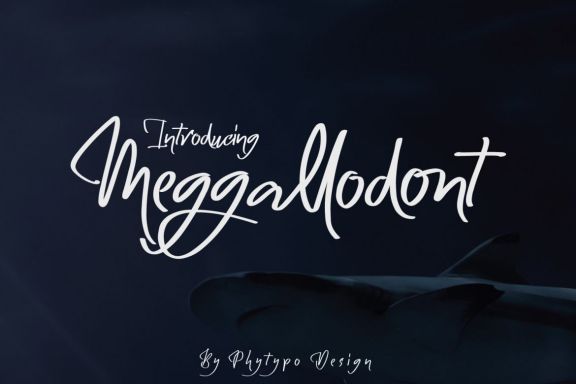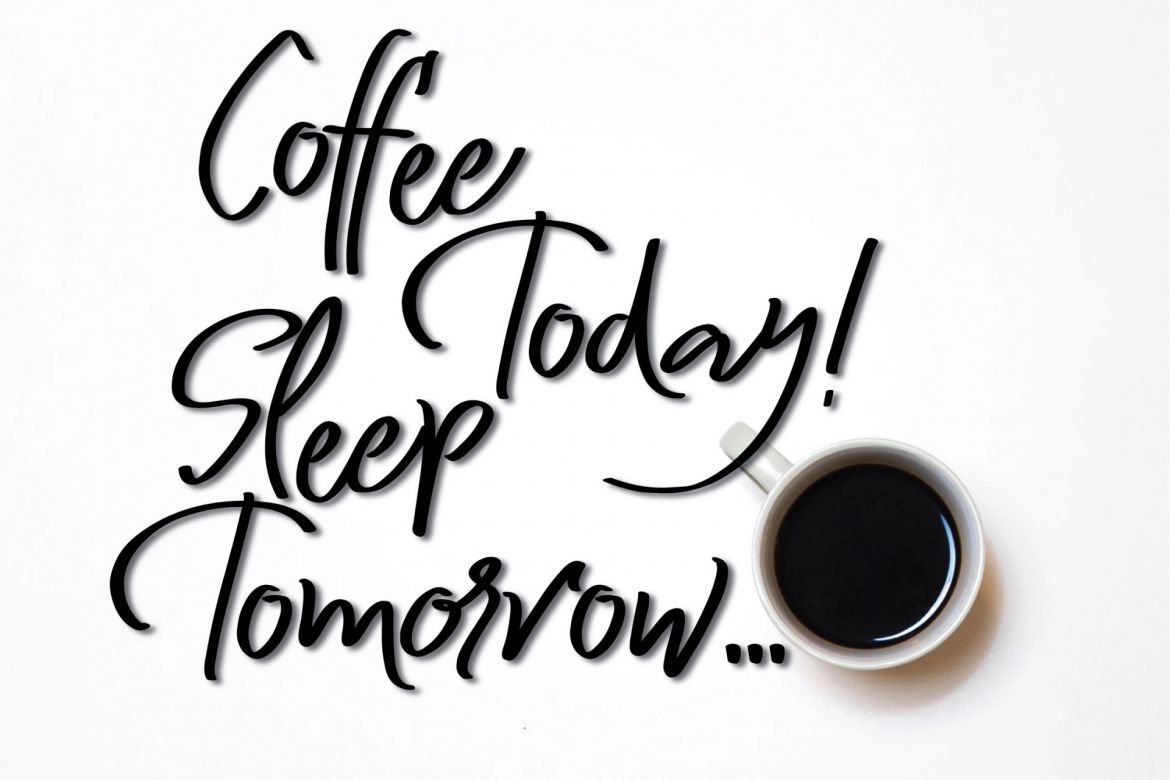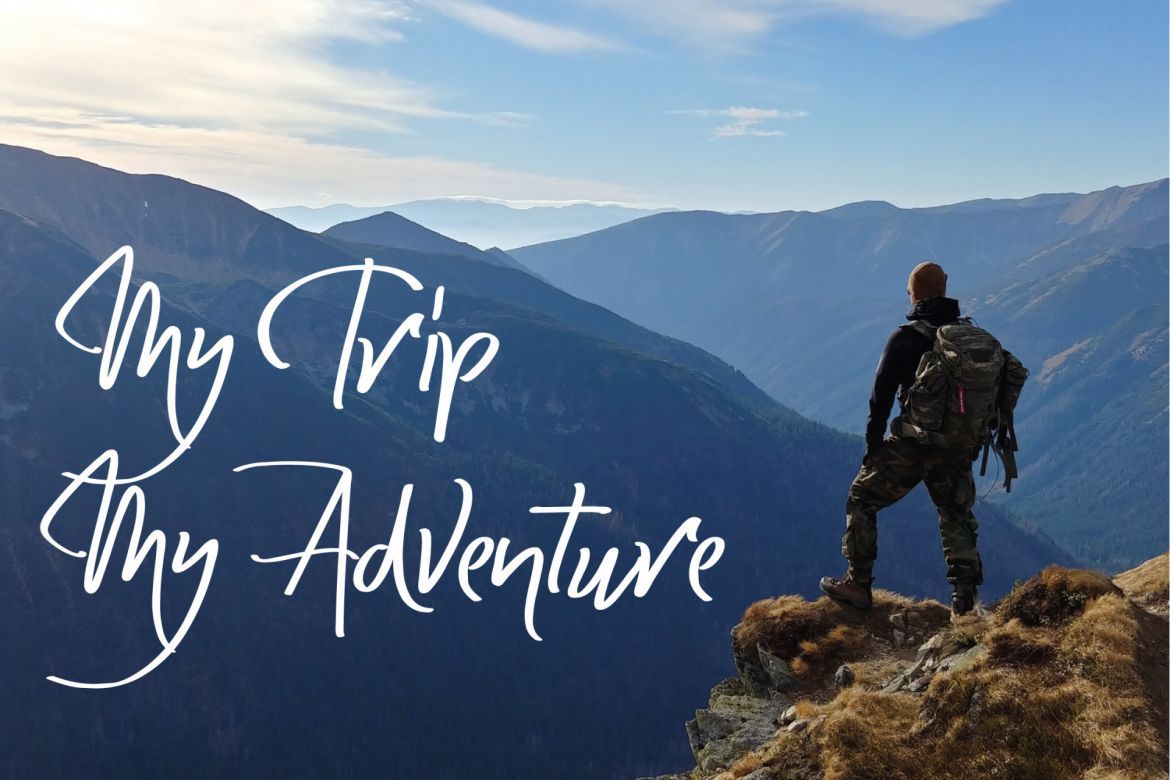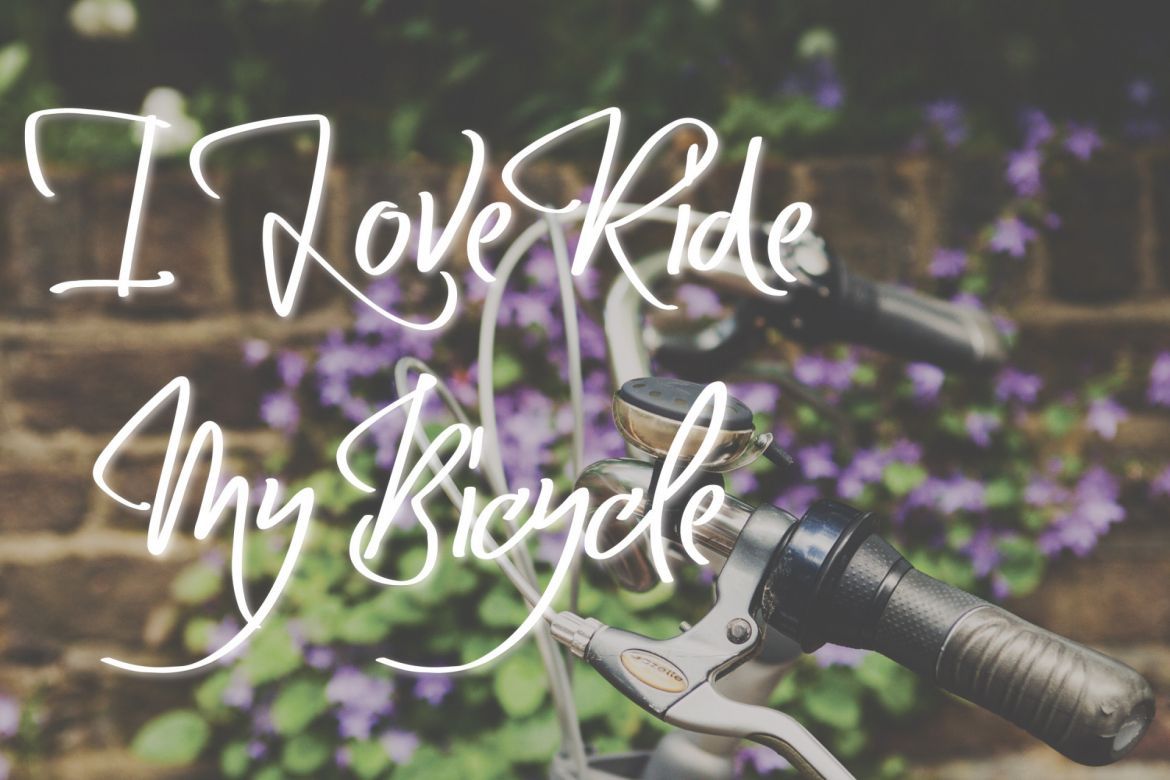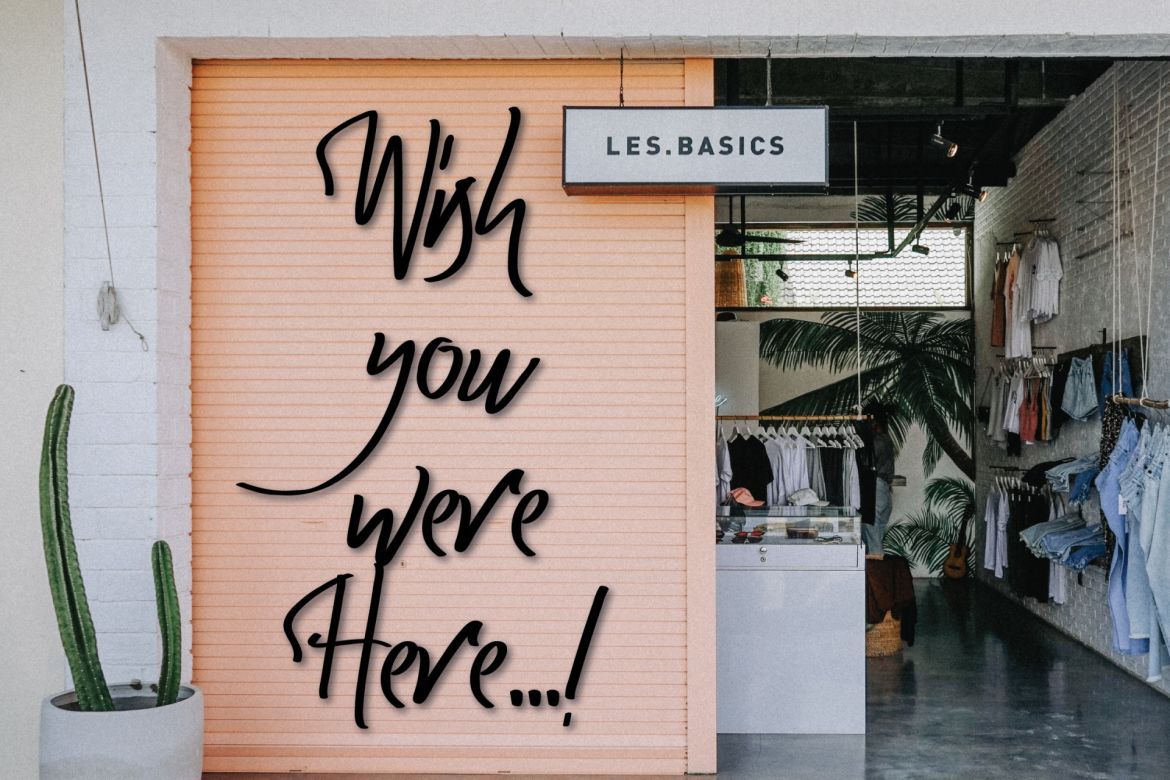
Meggallodont Fun Typeface
Meggallodont is a fun typeface font. Meggallodont would perfect for branding, clothing, printable merch, quote, watermark, and special event or anything….